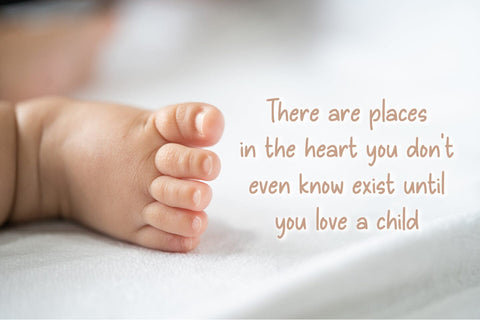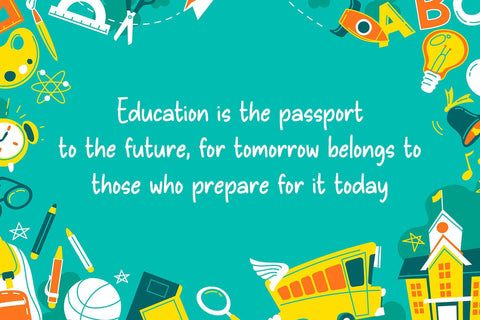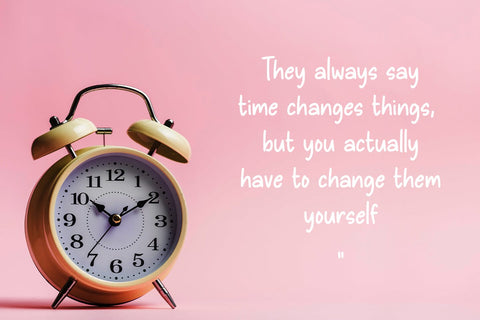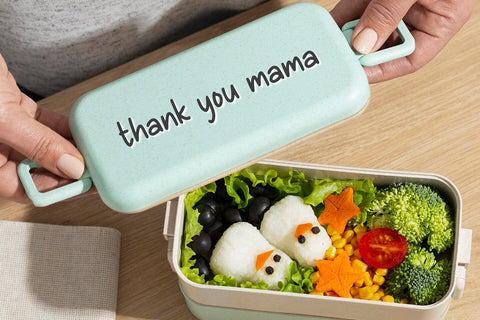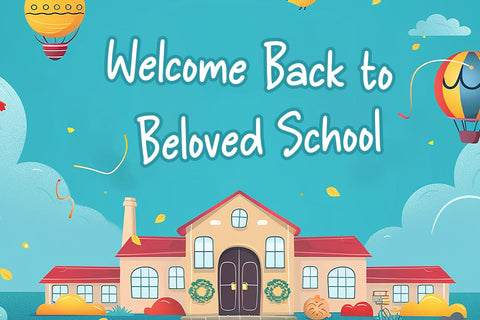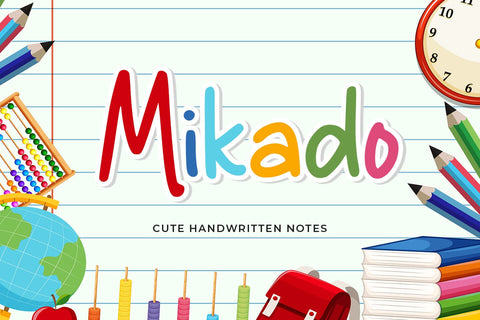
Mikado
introducing
MIKADO
- cute handwritten notes-
MIKADO is a playful note font.
It is great for branding, notes, books, quotes, logos, t-shirt designs, tote bag designs, cards, banners, social media, and more.